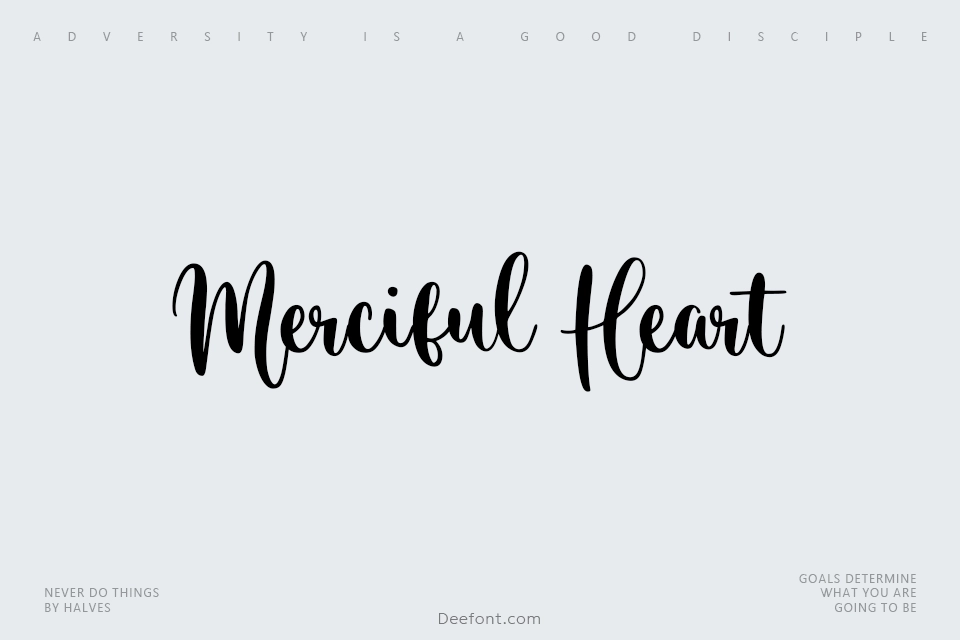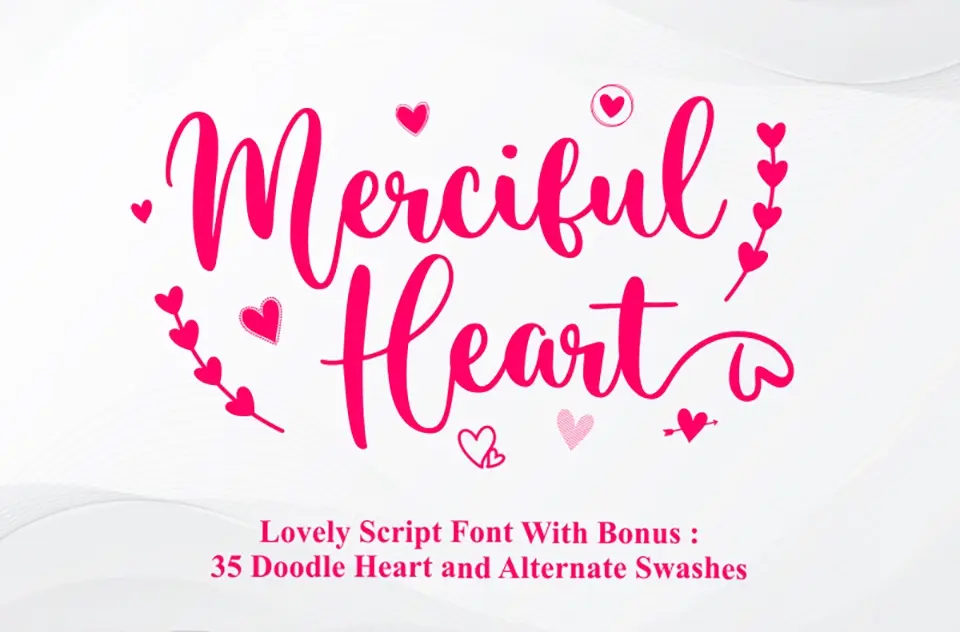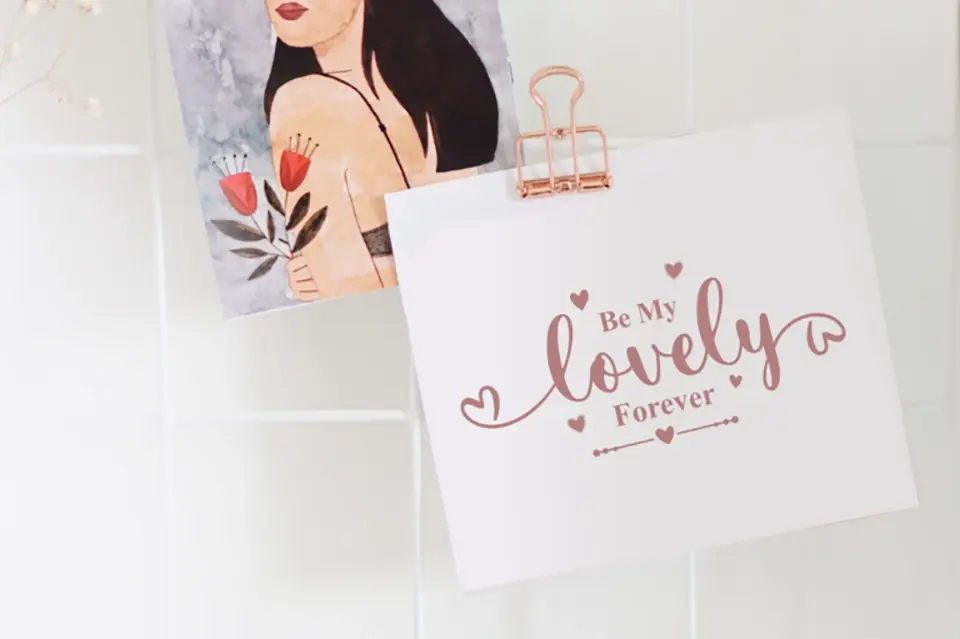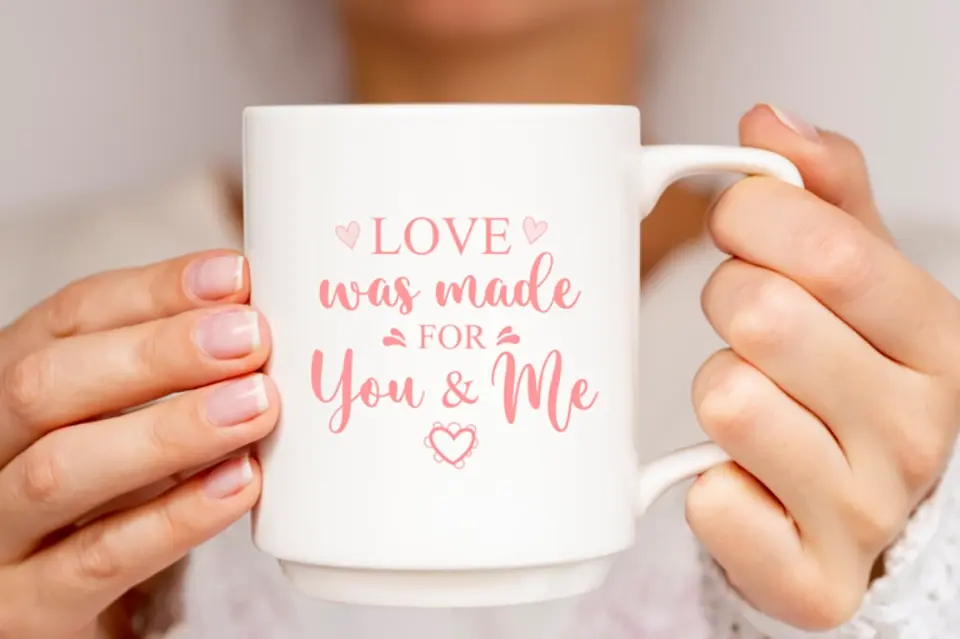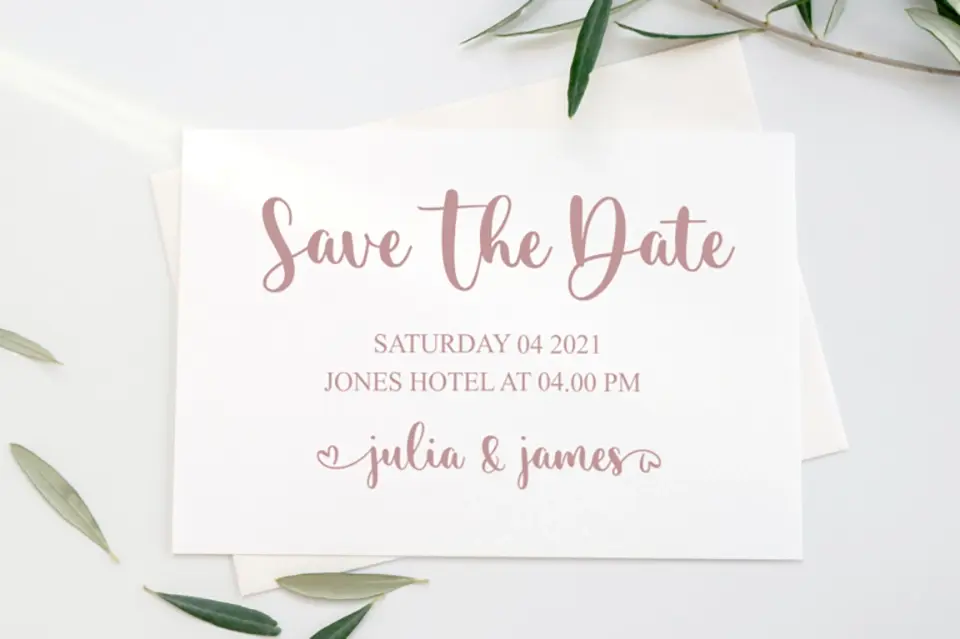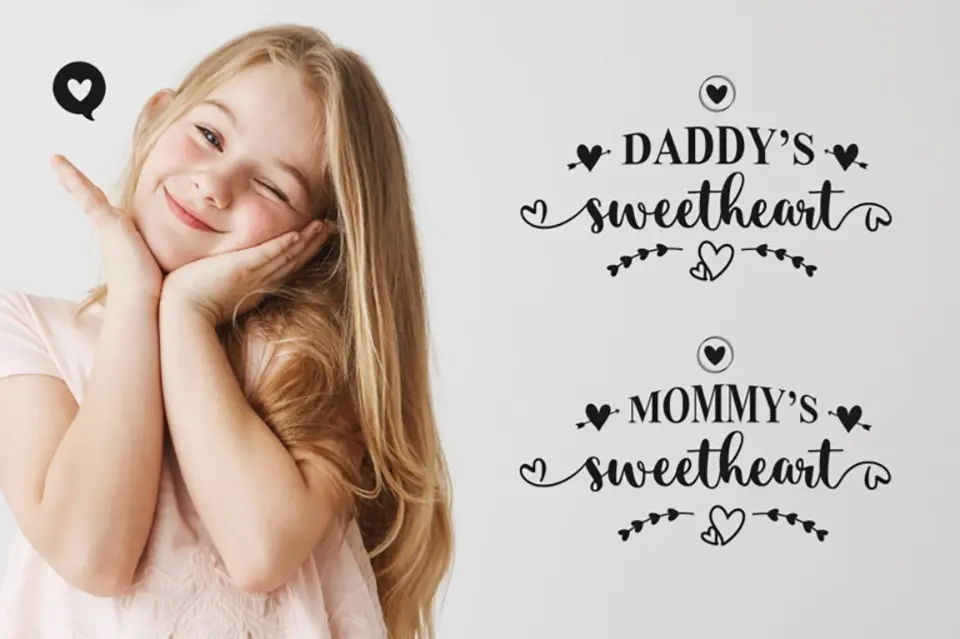
Merciful Heart Font
Merciful Heart is an elegant and graceful calligraphy script font created by Sronstudio, designed with beautiful alternate swashes and decorative elements perfect for craft projects. The font features lovely letterforms that provide a sense of lightness and romance, making it ideal for creating invitations, greeting cards, logos, and Valentine’s designs. With its sophisticated strokes and refined aesthetics, this typeface adds a touch of elegance to any creative project.